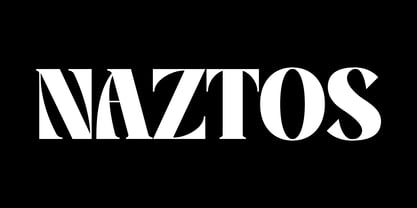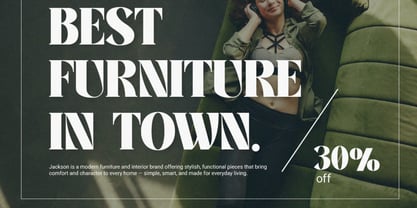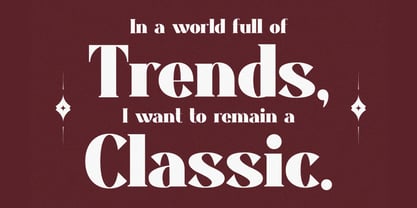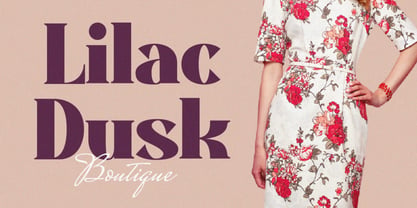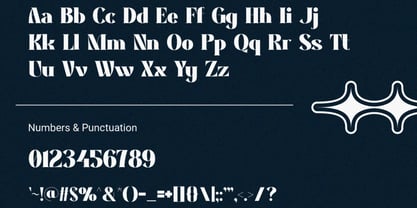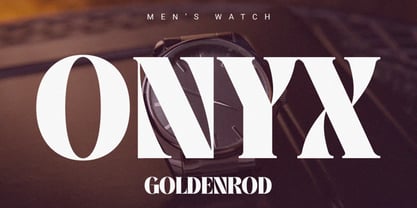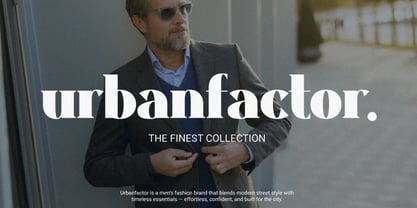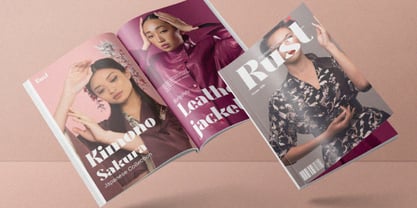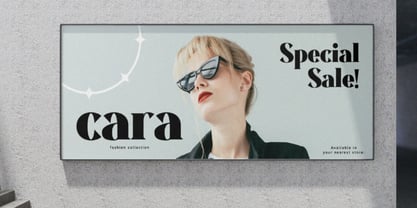
Naztos
Naztos is a premium editorial serif display font inspired by the elegance of high-fashion typography and luxury brand aesthetics. Designed with striking high-contrast letterforms, refined geometric balance, and sophisticated serif detailing, Naztos delivers a bold yet graceful presence that instantly elevates any visual composition.
Combining timeless serif craftsmanship with modern minimalism, Naztos creates typography that feels exclusive, confident, and effortlessly stylish. Its elegant curves, sharp serifs, and precise proportions make it the perfect choice for designers seeking a typeface that commands attention while maintaining an air of sophistication.
From fashion magazines and boutique branding to perfume packaging and luxury advertising campaigns, Naztos brings runway-inspired elegance to every project, helping brands communicate prestige, refinement, and visual authority.
Key Features:
• Luxury Editorial Serif Design: Inspired by high-fashion magazines and premium branding.
• Distinct High-Contrast Letterforms: Creates dramatic visual impact and upscale appeal.
• Elegant Serif Detailing: Refined curves and sharp terminals for sophisticated typography.
• Balanced Geometric Structure: Combines readability with modern elegance.
• High Readability: Optimized for both large display text and branding applications.
• Timeless Yet Contemporary: Blends classic editorial beauty with modern minimalism.
• Versatile Typography: Suitable for print, digital, and social media design projects.
• PUA Encoded Characters: Fully accessible without additional design software.
Perfect For:
• Luxury Branding & Logo Design: Create prestigious and memorable visual identities.
• Fashion Magazines & Editorial Layouts: Perfect for covers, headlines, and feature articles.
• Perfume & Beauty Packaging: Add sophistication to premium product presentation.
• Boutique Branding: Ideal for fashion labels, lifestyle brands, and designer products.
• Advertising & Campaign Design: Create elegant and attention-grabbing marketing materials.
• Social Media Visuals: Design refined and stylish content for luxury audiences.
• Wedding & Event Stationery: Bring timeless beauty and exclusivity to invitations and cards.
Make every design feel like a cover story with Naztos—a high-class editorial serif display font crafted for luxury branding, fashion campaigns, magazine layouts, boutique logos, perfume packaging, and sophisticated visual storytelling. Elegant, timeless, and unforgettable, Naztos transforms every headline into a statement of style and confidence.